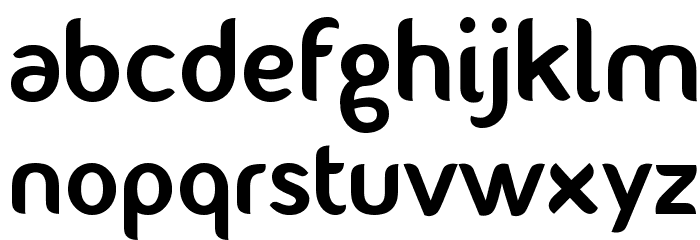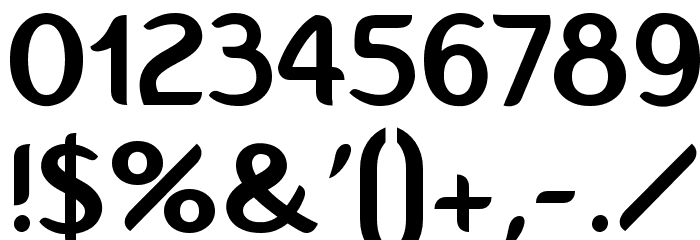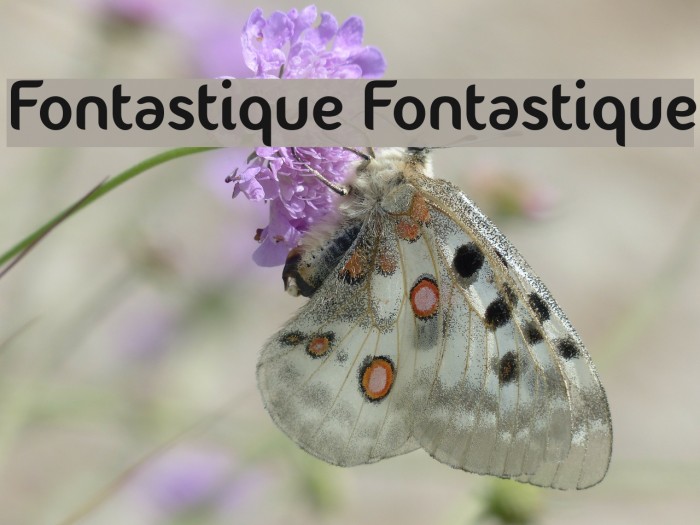
Fontastique Font
This font features a modern and playful design, characterized by smooth curves and rounded edges. The uppercase letters are bold and slightly condensed, giving a strong presence, while the lowercase letters maintain a friendly and approachable feel. The numerals are consistent with the overall style, providing clarity and readability. Special characters are well-integrated, maintaining the font's cohesive look. The overall appearance is clean and versatile, suitable for various design applications.
A modern, playful font with smooth curves and rounded edges.
- Proposed Projects: Ideal for branding, advertising, children's books, and digital media projects.
- Category: Sans-Serif
- Use Case: Headlines, Logos, Digital Media